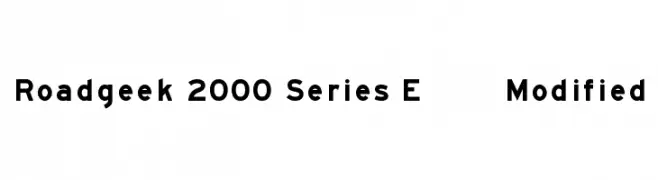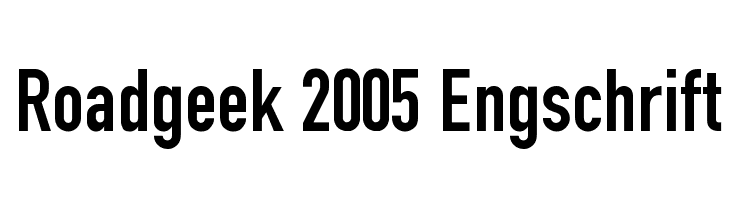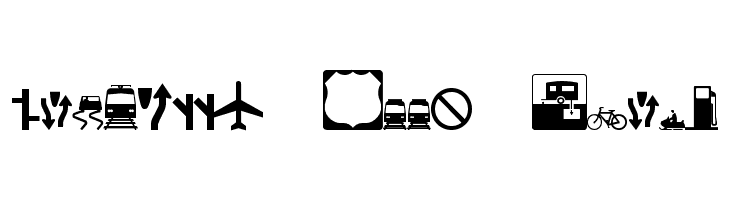
( Michael D. Adams - www.triskele.com/roadgeek-fonts/ )
A modern, tall, and narrow sans-serif font ideal for signage.
( Michael D. Adams - www.triskele.com/roadgeek-fonts/ )
A clean, legible sans-serif typeface with uniform stroke width and spacing.
( Michael D. Adams - www.triskele.com/roadgeek-fonts/ )
A modern, sans-serif font with a clean, uniform design and slightly condensed proportions.
( Michael D. Adams - www.triskele.com/roadgeek-fonts/ )
A bold, modern sans-serif font with excellent readability and a clean design.
( Michael D. Adams - www.triskele.com/roadgeek-fonts/ )
A bold, modern sans-serif font with excellent legibility.
( Michael D. Adams - www.triskele.com/roadgeek-fonts/ )
A modern, geometric sans-serif font with clean lines and excellent legibility.
( Michael D. Adams - www.triskele.com/roadgeek-fonts/ )
A set of bold, clear directional arrow symbols for road signage.